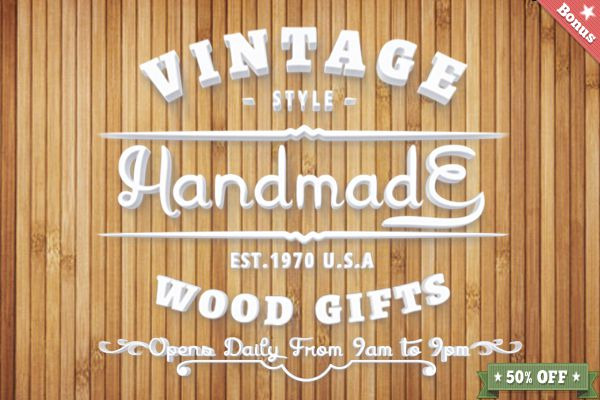
Gracia Typeface (50% Off)
Hello everyone, I am Roberto and this is my new font Gracia. I started working on this script two months back when I saw my brother writing in his notebook.
This script is completely based on Handwriting. Every stroke is made with love and care. My basic goal is to give you a fine handwritten font with some fine decoration. Nothing more than that :)